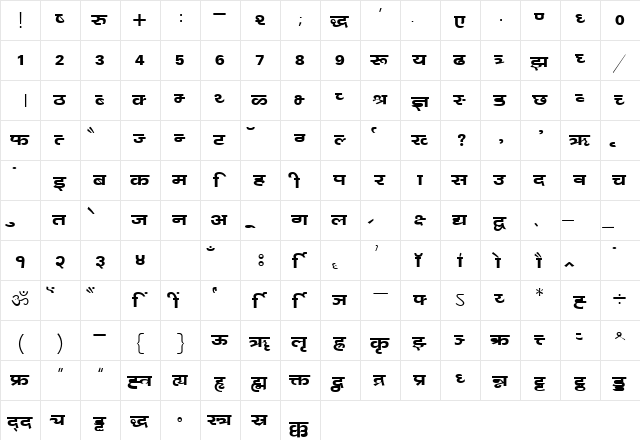
Kanika Normal
Design Context for Kanika Typeface
Kanika is a composed and adaptable typeface that performs quietly and consistently across a wide range of design contexts.